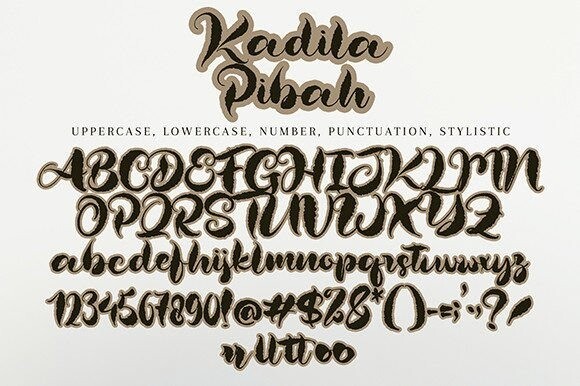
Kadila Pibah Font
Designer: Pineungtype & Missinklab
Kadila Pibah Font is a unique and quirky handwritten font, perfect for many different projects such as quotes, logos, blog headers, posters, banding, letters, invitations, stationery and much more.